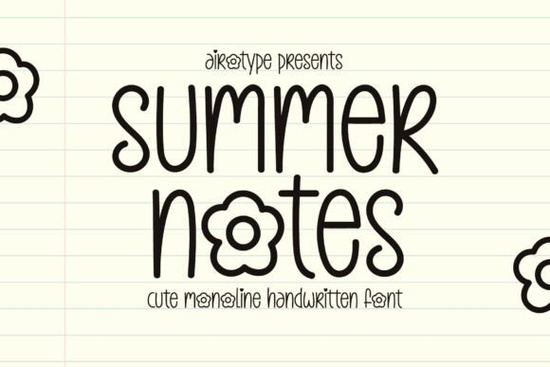
If you're looking for a relaxed, hand-lettered font that feels like it was scribbled with a favorite pen on a sunny afternoon, Summer Notes Font might be exactly what your next project needs. It’s a clean, casual handwritten typeface that brings warmth and authenticity to everything from greeting cards to t-shirt designs without trying too hard.
What makes Summer Notes stand out is its organic flow. The letterforms aren’t rigid or overly stylized; they mimic natural handwriting with subtle variations that keep things feeling human. That’s especially useful if you’re creating summer-themed invitations, back-to-school printables, or even custom stickers for water bottles and journals. The font works well in both digital and physical formats, making it a solid choice for crafters, small shop owners, and print-on-demand creators alike.
When should you use a handwritten font like Summer Notes?
Handwritten fonts shine in projects that benefit from a personal, approachable vibe. Think:
- Birthday party invites with a laid-back feel
- Summer camp flyers or beach-themed event posters
- Custom apparel for family reunions or vacation groups
- Sticker sheets for planners or bullet journals
- Sublimation designs on mugs, tote bags, or phone cases
Because Summer Notes avoids heavy embellishments, it pairs easily with photos, illustrations, or minimal layouts. You don’t need to over-design around it it complements rather than competes.
How does it compare to other script fonts?
Tips for getting the best results
To keep your design looking fresh and legible:
- Avoid tiny sizes. Handwritten fonts lose clarity when scaled down too much stick to 12pt or larger for body text, and go bigger for headlines.
- Pair it wisely. Combine Summer Notes with a simple sans-serif (like Montserrat or Lato) for contrast and readability.
- Use generous spacing. Slight letter-spacing can enhance the casual feel without crowding the letters.
- Limit all-caps usage. This font shines in sentence case or mixed case uppercase can feel stiff and defeat its natural charm.
And remember: less is more. One or two words in Summer Notes as a focal point often work better than entire paragraphs.
If your current font library lacks a breezy, everyday handwritten option, Summer Notes fills that gap without overwhelming your workflow. It’s versatile enough for seasonal campaigns yet neutral enough to use year-round when you want to add a touch of sincerity to your message.